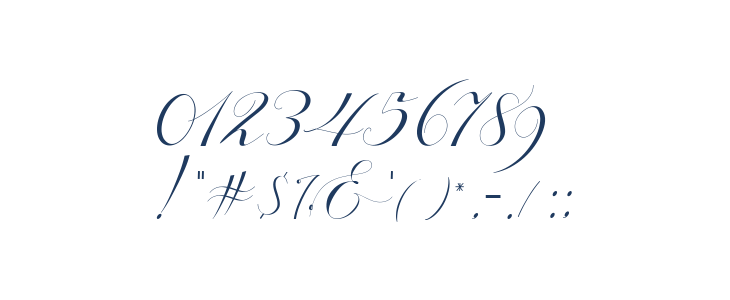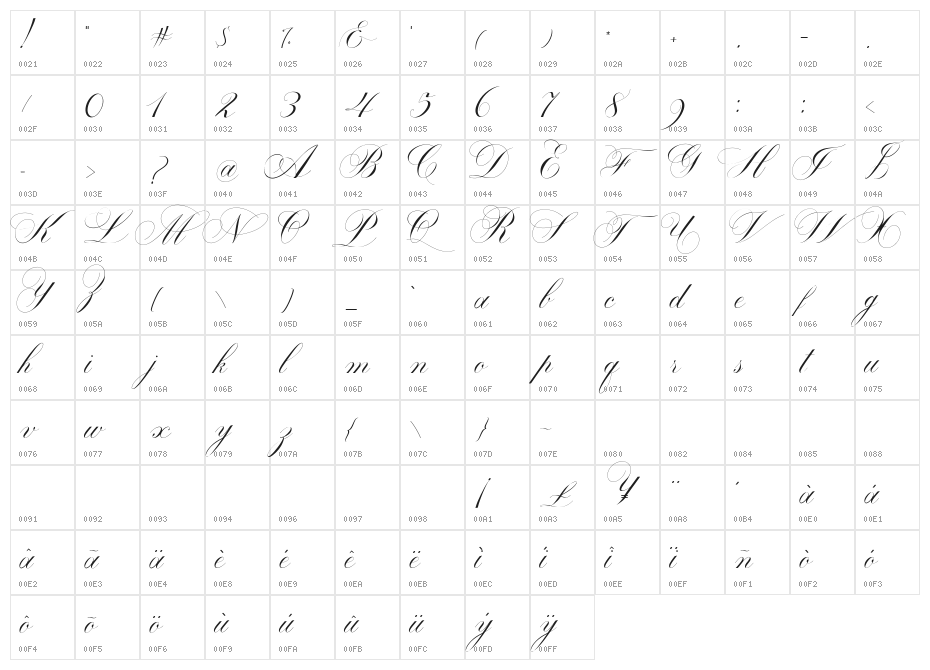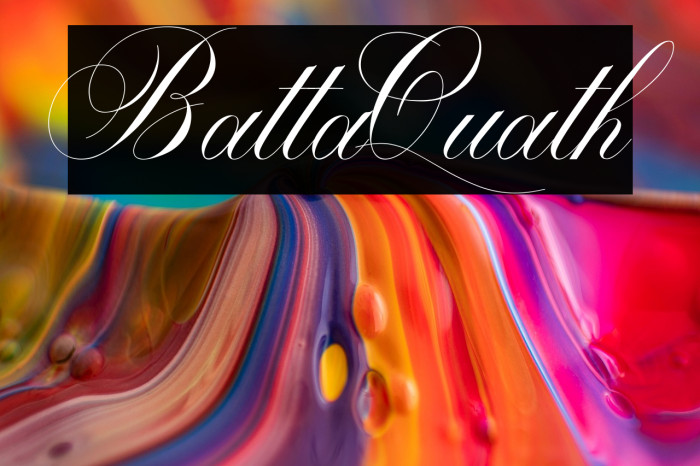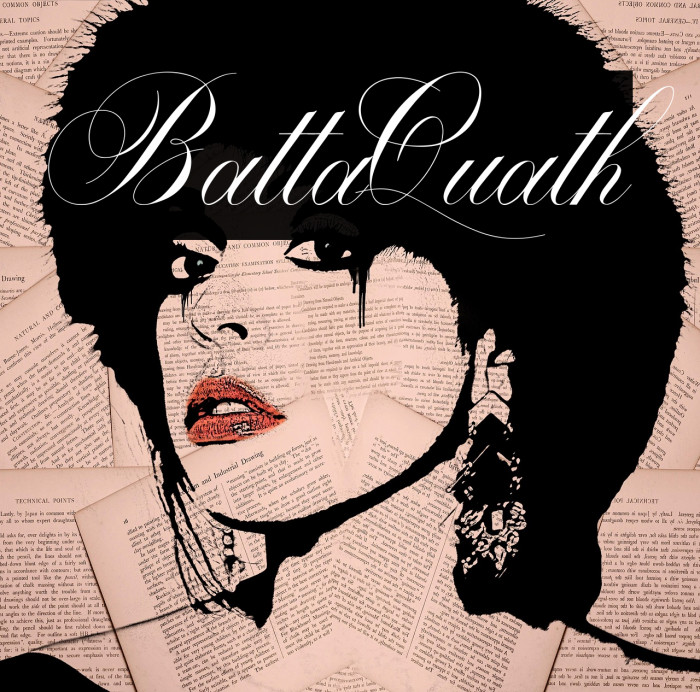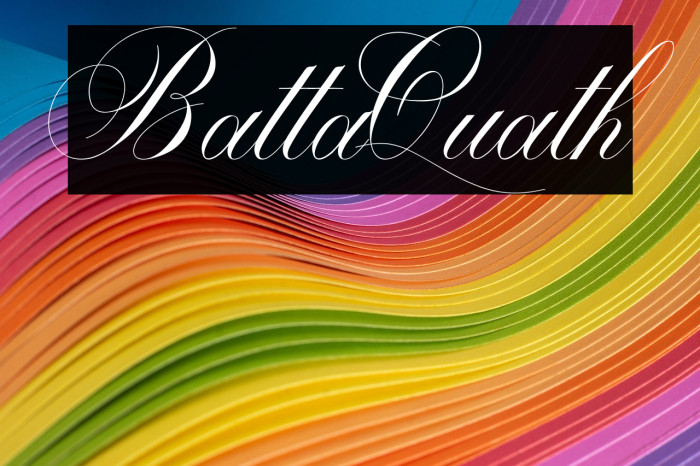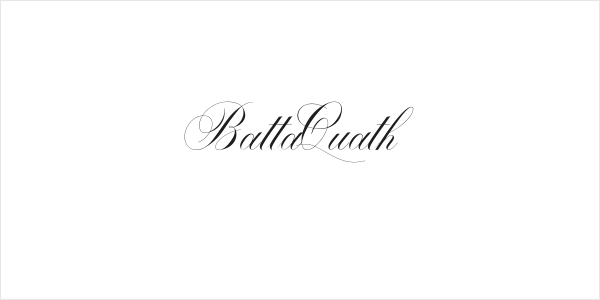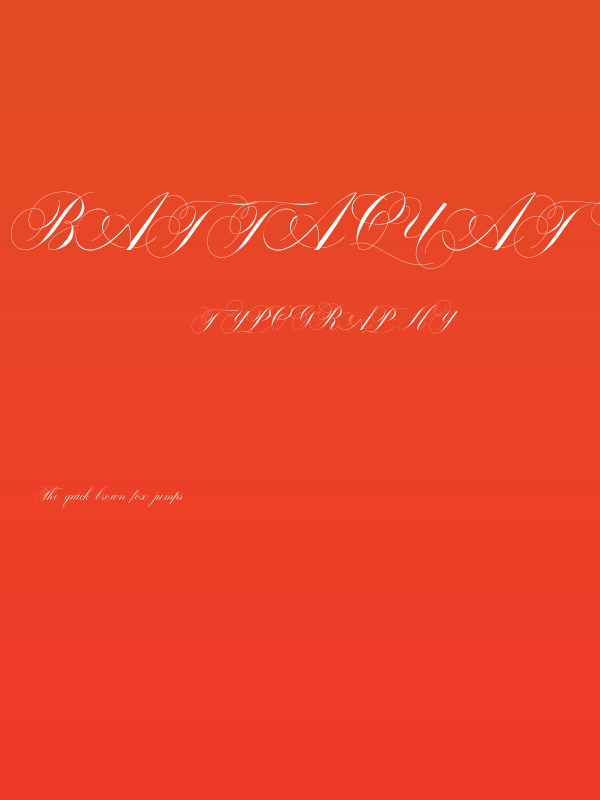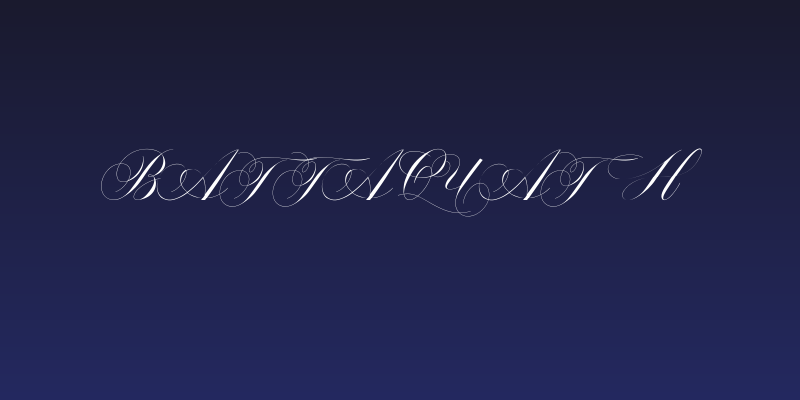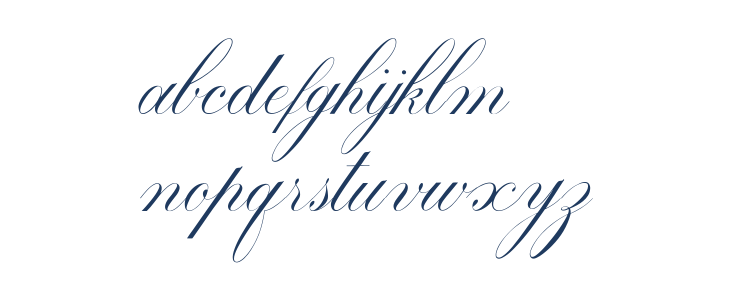
BattaQuath Font
BattaQuath Description
This elegant script font features a sophisticated and flowing design, characterized by its ornate and intricate letterforms. The uppercase letters exhibit graceful loops and swashes, adding a touch of luxury and refinement. The lowercase letters maintain a consistent flow, with delicate curves and a slight slant that enhances readability. The numerals are stylishly crafted, complementing the overall aesthetic. Special characters are thoughtfully designed, maintaining the font's cohesive look. This font exudes a sense of elegance and is perfect for projects that require a touch of class and sophistication.
Overall StyleElegant
Use CaseLogos, Invitations, Branding
Proposed ProjectsIdeal for wedding invitations, luxury branding, elegant stationery, and high-end product packaging.